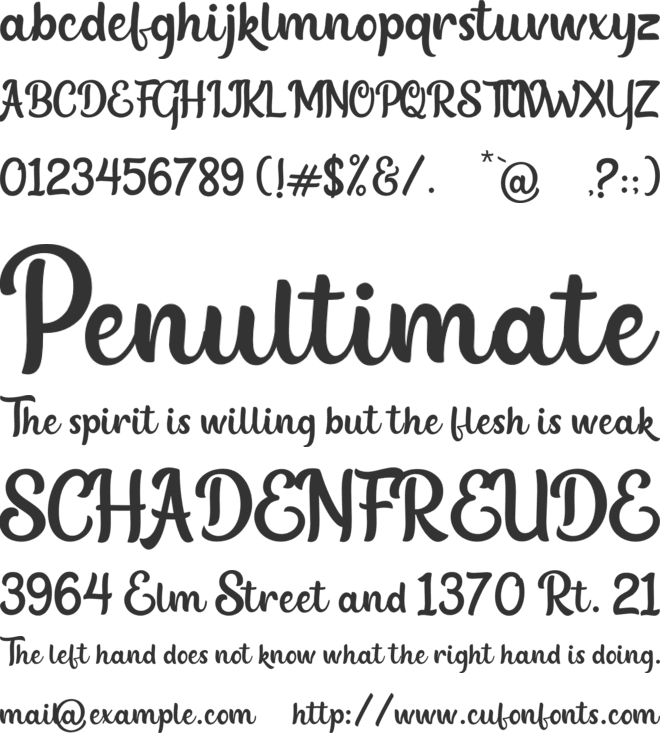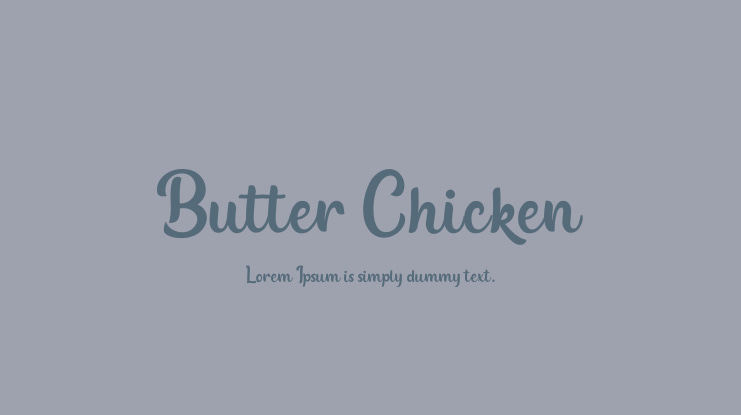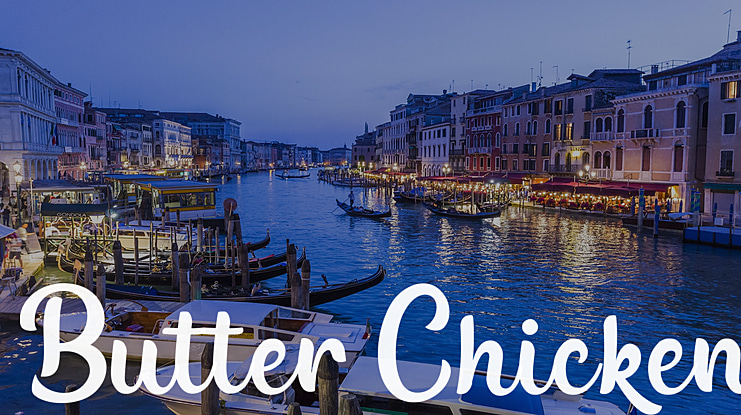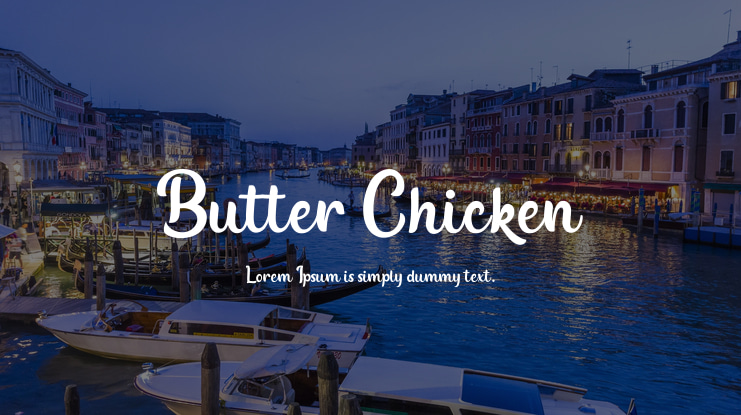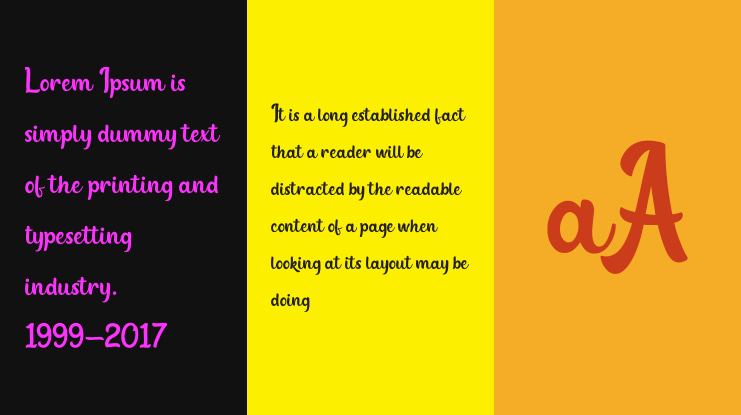
Butter Chicken Font
We proud presenting our new font.
It's name Butter Chicken.
Butter Chicken is a bold script font with a handwritten style make this font looks elegant, natural, stylish .
Butter Chicken would perfect for logotype, food posters, handcrafted, craft, invitation, logos & branding , photography, advertisements, watermark, social media posts, product packaging, product designs, label, wedding designs, stationery, special events or anything that need handwriting taste.